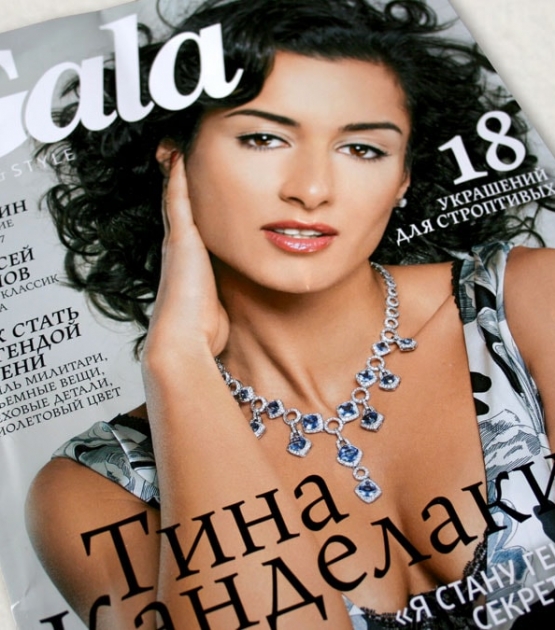
Maiola Cyrillic
Designed by Veronika Burian . Released 2010.
Maiola Cyrillic is a contemporary typeface that is mindful of its heritage. It is intended for high-quality printed text and thus handles its expressive tendencies with care to equalise the important issues of legibility and personality. Its glyphs have purposeful and subtle irregularities which enhance its dynamic spirit. Maiola Cyrillic’s characteristics have a tangible benefit on the ease of reading and, though they remain subtle at text sizes, are commanding, pointed, and memorable when used in large headings. Maiola Cyrillic shows that typefaces can bridge tradition and progression without losing one bit of expressiveness.
• Judge’s Choice TDC 2004
• 2005 Creative Review design competition
• First place, 2008 Granshan competition (Cyrillic category)
• Ukrainian typeface competition
• 2010 Rutenia Calligraphy & Typography Festival in Kyiv
• E–A–T Exhibition
Maiola Cyrillic
A contemporary, expressive serif with calligraphic nuances.
Inspired by early Czech type design, Veronika Burian’s Maiola is a contemporary typeface that is mindful of its heritage. Maiola creates a welcoming tension on the page by implementing oldstyle features and calligraphic reminiscences such as a humanist axis, modest contrast, and pen-formed terminals.
Maiola is intended for high-quality printed text and thus handles its expressive tendencies with care to equalise the important issues of legibility and personality.
Maiola’s expressiveness stems from the handmade feeling of the letterforms. To give the impression that it was etched rather than created digitally, its glyphs have purposeful and subtle irregularities which enhance its dynamic spirit. Hard breaks and sharp angles placed throughout each glyph reinforce the idea of handmade imperfections inherent to the technology of centuries past: strokes and serifs vary slightly in weight and shape; the rising crossbar of the ‘e’ opens the interior space; the foot serifs are asymmetrical in length and diagonally cut; each curve has angles injected; and the serifs along the x-height have diagonal and curved shapes.
Maiola’s italic styles take the expressiveness a few steps further, proudly displaying the sharp and cutting nature of the pen tool. It follows a similar spirit as the roman, but with greater stroke contrast and more brisk curvature and angularity throughout. Alternate capital letters are available in the italic to vary the feeling slightly while keeping Maiola’s inherent dynamism and liveliness.
Together these characteristics have a tangible benefit on the comfort and ease of reading and, though they remain subtle at text sizes, are commanding, pointed, and memorable when used in large headings. Maiola shows that each variation is perfectly in place — resolved in the best way possible to bridge tradition and progression without losing one bit of expressiveness.
Maiola covers the Latin A, Cyrillic, and polytonic Greek languages (Greek extension by Irene Vlachou) and, while each is basically independent from each other, harmonise well together in multilingual text settings. Maiola is more than able to bring high-quality expression to your projects with its six styles and exhaustive OpenType features. The complete Maiola family, along with our entire catalogue, has been optimised for today’s varied screen uses.